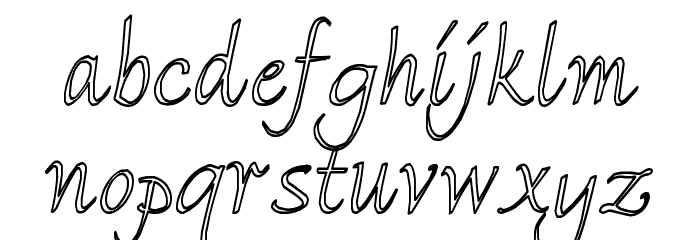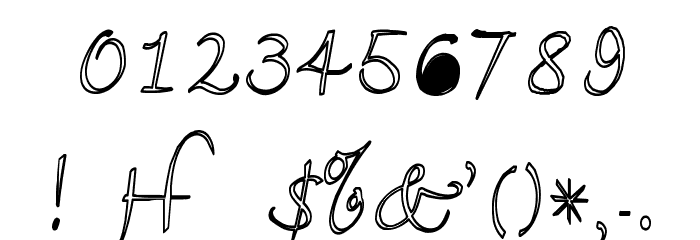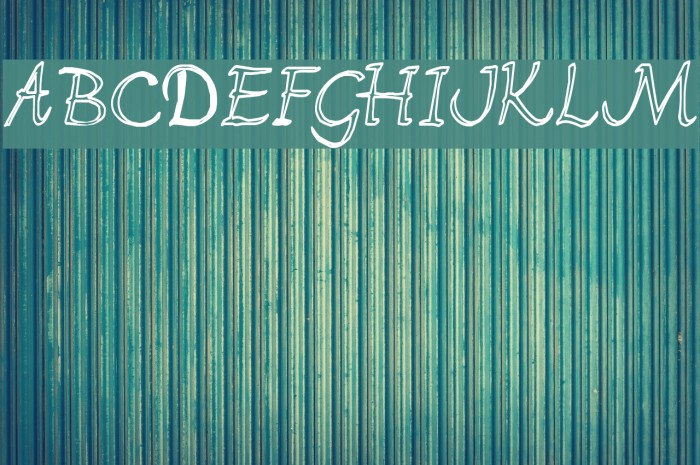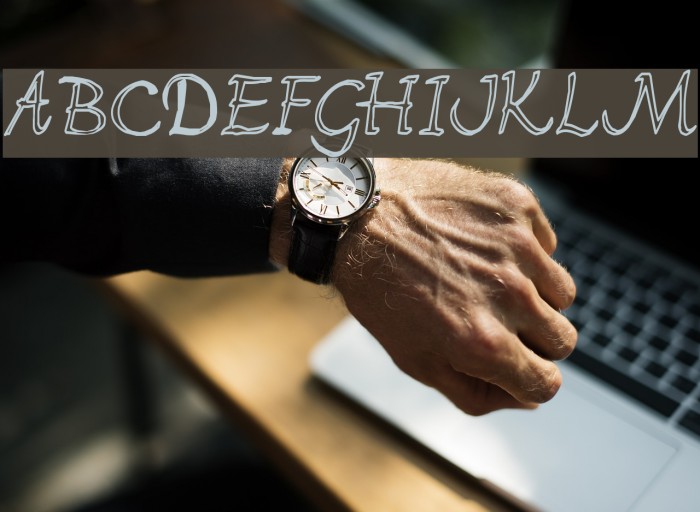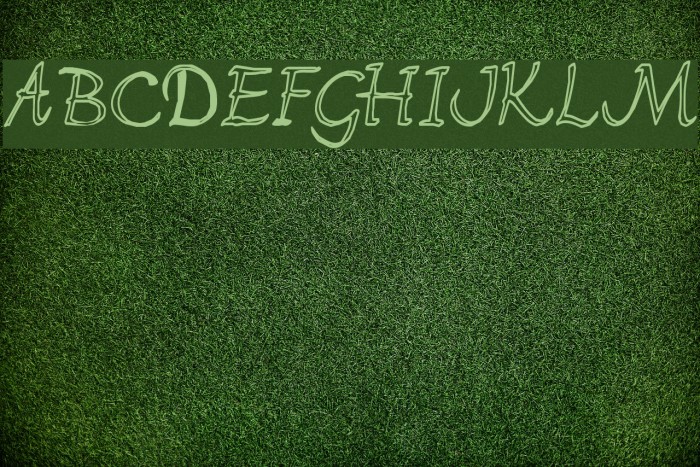
FlorenceHC Font
This font features a dynamic and flowing script style, characterized by its elegant and slightly whimsical appearance. The uppercase letters exhibit a distinct flair with varying stroke widths, while the lowercase letters maintain a consistent fluidity, enhancing readability. The numerals are uniquely styled, complementing the overall aesthetic with a touch of sophistication. Special characters are creatively designed, adding to the font's versatility. This font's artistic nature makes it suitable for projects that require a personal and creative touch.
A dynamic and elegant script font with a whimsical flair.
- Proposed Projects: Ideal for wedding invitations, greeting cards, branding projects, and artistic posters.
- Use Case: Logos, Invitations, Artistic projects